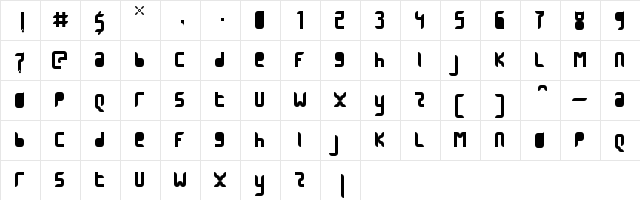
1945 Regular
| Designer | Muhammad Rizky Ariesto |
Design Context for 1945 Typeface
1945 is a composed and adaptable typeface that performs quietly and consistently across a wide range of design contexts.
Pro Tip: Pair 1945 with a font of contrasting weight or personality to build a more expressive typographic hierarchy.